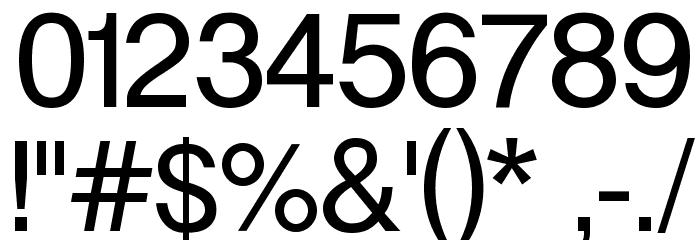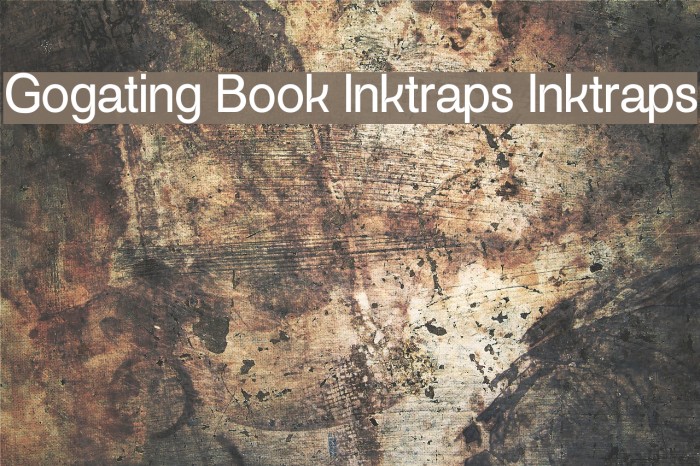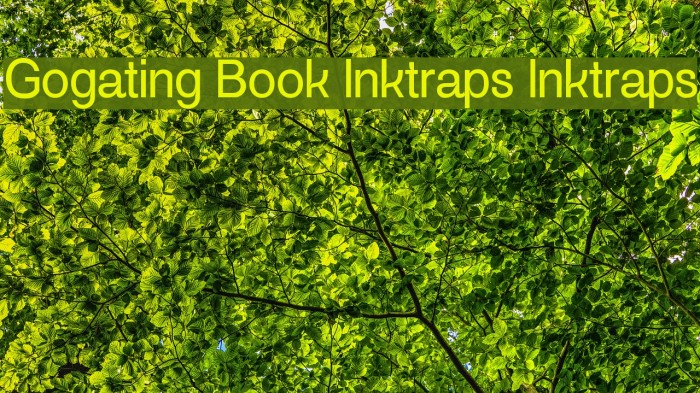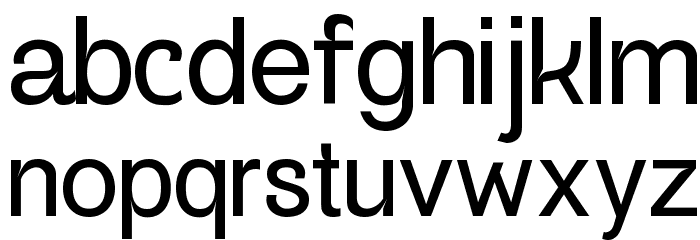
Gogating Book Inktraps Font
Gogating Book Inktraps Description
This font features a clean and modern sans-serif design with subtle inktraps that enhance readability and add a unique character to the typeface. The letters are well-proportioned, with a consistent stroke width that gives it a balanced and harmonious appearance. The uppercase and lowercase letters are distinct and easily distinguishable, making it suitable for a variety of applications. The numerals are clear and legible, and the special characters are well-integrated into the overall design. This font's simplicity and elegance make it versatile for both digital and print media.
| Use Case | Headlines, Body text, Logos |
| Proposed Projects | Ideal for branding, editorial design, web design, and corporate materials. |